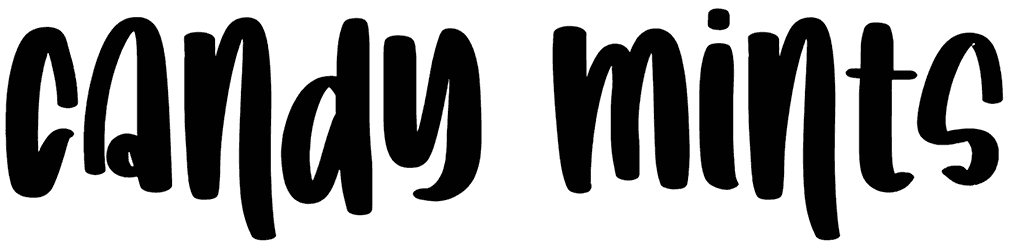
Candy Mints Font
The Candy Mints’ fancy letters would be really well applied in a vast set of creative ideas like decorations, animation posters, magazines, web page templates, or stickers.
This sticker font comes with a cursive style, so it has the real potential to add a sense of vivacity, grunge, momentum, or professionalism to your visual content. Just in case you require another handwritten font, we strongly recommend you visit the RB font collection.